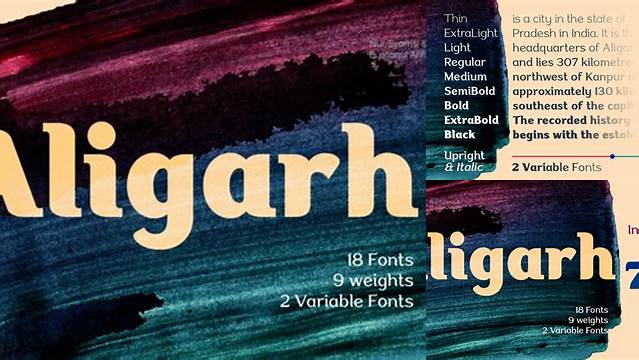
Hey guys! If you're on the hunt for a stylish and versatile font, look no further than the Aligarh font! It's a fantastic choice, and the best part? You can get the Aligarh font free of charge. This article is your ultimate guide to everything you need to know about this awesome font, from where to snag it to how to use it in your projects. Let's dive in!
H2: Unveiling the Allure of the Aligarh Font
Alright, so what's the big deal about the Aligarh font? Well, it's got a unique charm that's hard to resist. It's a modern, clean typeface that strikes a perfect balance between readability and style. Whether you're designing a website, creating marketing materials, or just sprucing up a document, the Aligarh font can elevate your work. The font's design is inspired by a blend of classic and contemporary styles, making it incredibly versatile. It's not just about aesthetics, though. The Aligarh font is designed with functionality in mind. It's clear and easy to read, ensuring that your message comes across without any distractions. This is particularly important if you're using it for body text, where clarity is paramount. Its simple, elegant lines are easy on the eyes, promoting a better reading experience for your audience. The font has been optimized for digital displays, too, which means it looks great on screens of all sizes. No more pixelated or distorted text! The Aligarh font also boasts a wide range of weights and styles. This gives you the creative flexibility to experiment with different looks and feels. You can go bold and dramatic or subtle and sophisticated, depending on your needs. The developers behind the Aligarh font have thought of everything to provide a high-quality font that’s both visually appealing and practical. The kerning is also excellent, so the spacing between letters is perfect, resulting in a polished and professional look. If you're looking to make a statement with your design work, the Aligarh font is a superb choice. You won't regret downloading the Aligarh font free because it can significantly improve your projects!
H3: Exploring the Design and Features of Aligarh Font
When you're considering using a font, it's important to look at the design and features. Let's get up close and personal with the Aligarh font. Its design is a result of careful consideration and a deep understanding of typography. The designers aimed to create a font that is both visually appealing and highly functional. The typeface is categorized as a sans-serif font, which means it lacks the small strokes at the ends of the letters, making it modern and clean. This design choice is excellent for digital applications and any use case where clarity is key. Aligarh font boasts a strong, consistent structure, which aids in readability and is easily recognizable. Each character is carefully crafted to provide an even flow, perfect for body text. The design is not overly stylized, which ensures it maintains its timeless quality. The font's versatility stems from its various weights, including regular, bold, and light. These diverse weights allow you to create visual hierarchy within your design. You can use the bold weight for headings to grab attention and the regular weight for the body text, keeping everything balanced. The Aligarh font also supports a wide range of characters and symbols, making it suitable for different languages. This feature is a huge plus if you're creating content for a global audience. The font is designed to look great at different sizes, from small text on mobile devices to large displays. The spacing between letters is designed to be optimal, avoiding any awkward gaps or overlaps. In essence, the design and features of the Aligarh font make it an excellent choice for any project. Plus, you have the option to download the Aligarh font free, which makes it a fantastic option for everyone. If you're considering using a font, the design and features make the Aligarh font worth looking into.
H3: Comparing Aligarh Font to Other Free Font Options
When you're on the lookout for a font, there are tons of free options. How does the Aligarh font stack up? Comparing it to other free fonts can help you find the best fit for your project. There are many sans-serif fonts that are popular like Open Sans, Roboto, and Lato. These fonts are known for their clean designs and high readability. The Aligarh font has similar qualities, making it a great option. However, the Aligarh font has a unique style. It adds a bit of personality. Compared to other sans-serif fonts, Aligarh has a subtle touch of elegance. It works well for both professional and creative projects. When you compare the Aligarh font to serif fonts such as Times New Roman or Garamond, it's clear that the Aligarh font has a more modern feel. Serif fonts are great for traditional uses, but the Aligarh font shines in digital design. For projects that involve screen displays, Aligarh is a great option because of its readability. Some free fonts have limited weights or styles. Aligarh offers a range of weights. This gives you greater design versatility. You can easily create visual hierarchy. When comparing the Aligarh font free to options that are not free, you will see that the main difference is the cost. Premium fonts offer features and licensing options that free fonts do not, such as extensive language support and dedicated customer service. However, the Aligarh font is still a great option for most projects. It offers high-quality design and the flexibility to meet most design needs. Also, the fact that you can download the Aligarh font free is an added bonus. When choosing a font, consider your project requirements. Think about readability, design, and the level of professionalism you want. If you need a modern, versatile font, the Aligarh font is a great option. It's a great alternative to other free fonts and offers an excellent design.